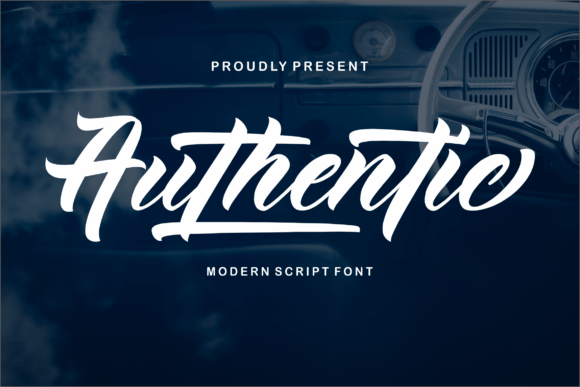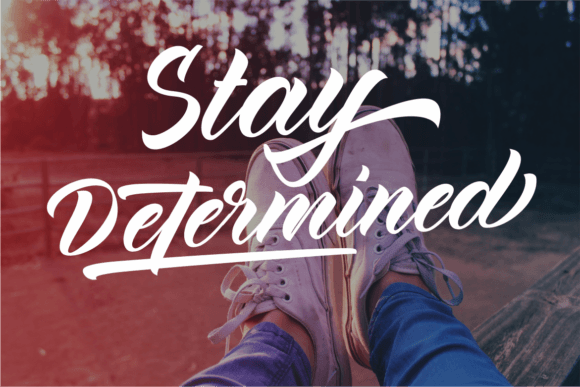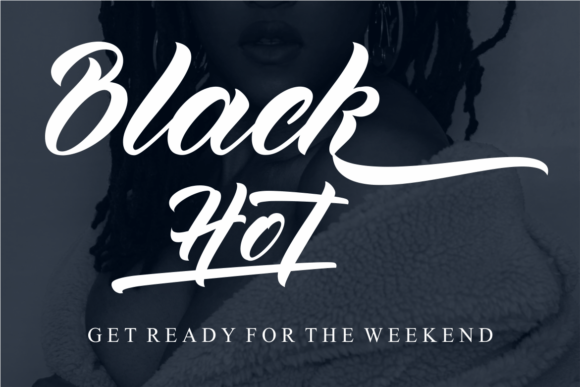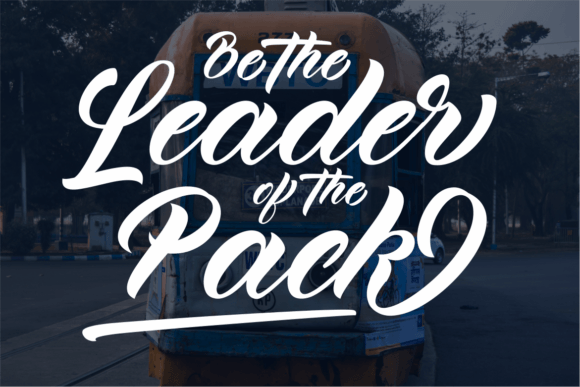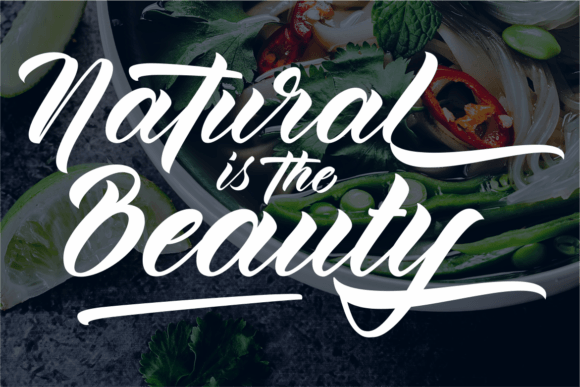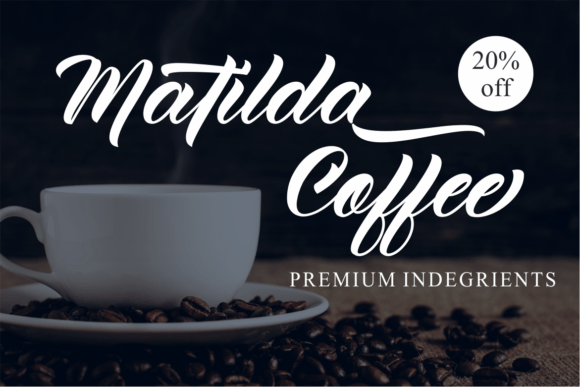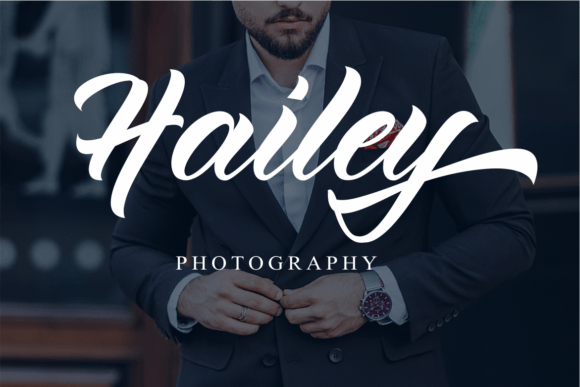
Authentic Font
Authentic Handwritten Font – Modern and Bold Typeface
The Authentic Handwritten Font is a bold and stylish script typeface created to give your designs confidence and flair. With its strong handwritten strokes and modern appeal, it is designed to make your projects stand out. Whether you are creating greeting cards, posters, or digital graphics, this font offers a versatile solution that combines creativity with professionalism.
A Bold Handwritten Script
The Authentic Handwritten Font blends bold strokes with smooth curves, giving text a lively yet polished flow. Its confident appearance makes it suitable for attention-grabbing projects, while its natural handwritten style ensures approachability. Because of this, it is a perfect balance of modern design and classic charm.
Perfect for Crafts and Greeting Cards
One of the most popular uses of the Authentic Handwritten Font is in crafts and greeting cards. Its bold yet friendly strokes bring a personal touch to thank-you notes, invitations, and handmade projects. At the same time, it works wonderfully in posters, product packaging, and social media graphics where visibility and style matter most.
The Authentic Handwritten Font adapts effortlessly to different applications. From branding and business cards to event signage and digital designs, it adds a handwritten charm that is both bold and modern. Its readability makes it reliable across both print and online projects.
Why Designers Love Authentic Font
Designers appreciate the Authentic HandwrittenFont for its ability to balance strength with creativity. It is bold enough to capture attention while being versatile enough for personal projects. This flexibility makes it a valuable addition to any design collection.